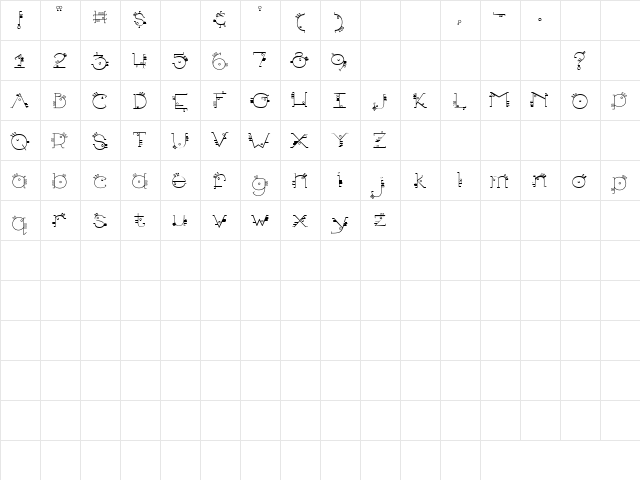
CK Southwest Regular Font Preview
CK Southwest Regular
Design Context for CK Southwest Typeface
CK Southwest is a composed and adaptable typeface that performs quietly and consistently across a wide range of design contexts.